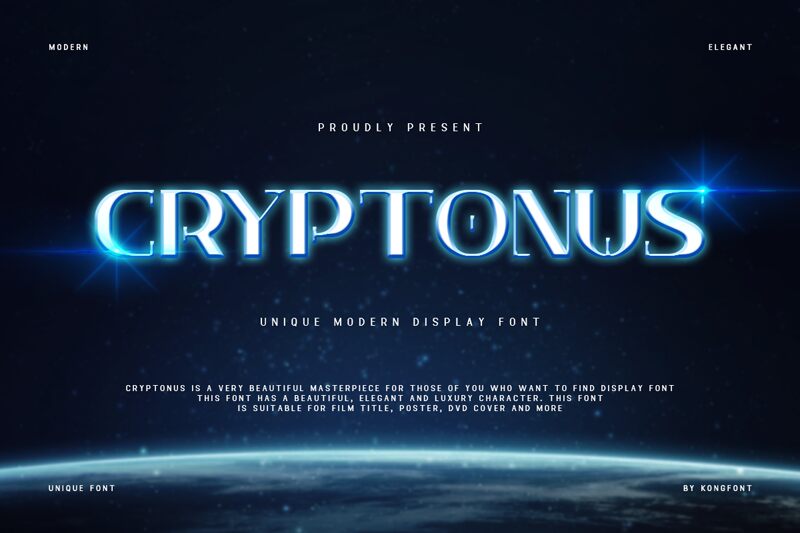
Cryptonus font by Kong Font is a free fancy font that embodies a blend of sleek, futuristic, and modern aesthetics. Boasting an elegant and dynamic design, it offers an energetic, cinematic, and impactful presence ideal for capturing attention. This font exudes a luxurious and sophisticated vibe, making it a versatile choice for designers and creative professionals.
Perfect for a variety of applications, Cryptonus can enhance logos, print designs, product packaging, social media, posters, headlines, and business cards. Its stylish appeal also suits invitations, stationery, magazines, labels, and more.